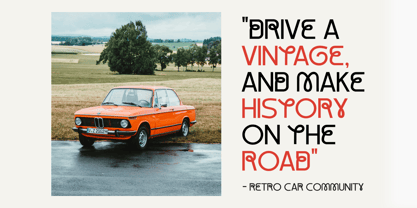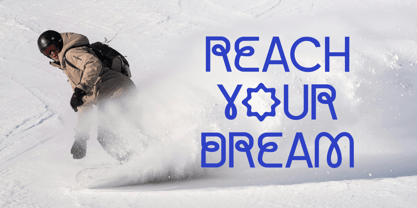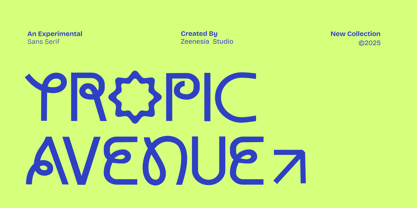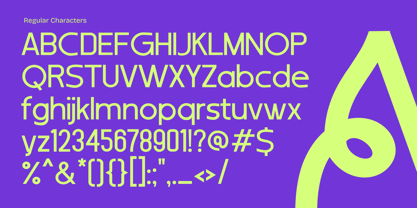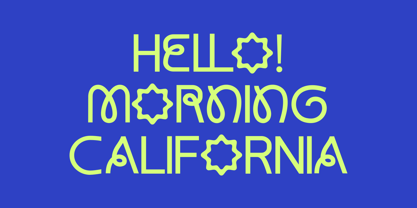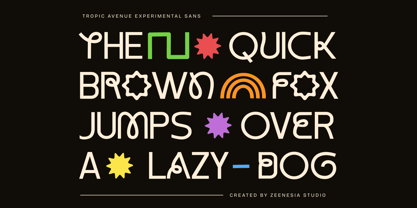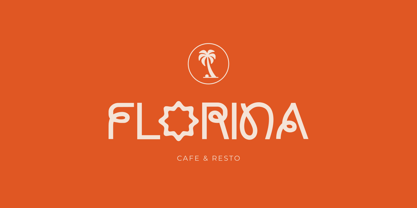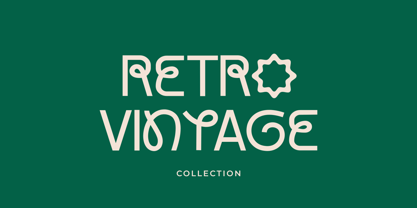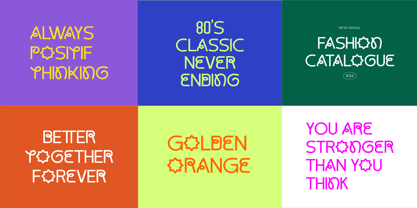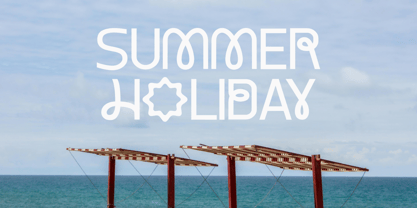
Tropic Avenue
by Zeenesia Studio
The Tropic Avenue Font Family was designed by Doni Purwoko and published by Zeenesia Studio. Tropic Avenue contains 2 styles and family package options. More about this family
Tropic Avenue is an experimental sans serif font. Its distinctive structure blends bold strokes with organic curves, offering a fresh take on modern typography. Each letter is thoughtfully designed to achieve a balance between clarity and artistic expression. Ideal for contemporary branding, editorial layouts, and digital media, Tropic Avenue draws attention with its unconventional yet highly legible form.
Beyond its modern appeal, Tropic Avenue includes a variety of stylistic alternatives, allowing for adaptability across different visual applications. Whether used in striking display settings or refined body text, its unique characteristics add personality without overpowering readability. A perfect choice for designers seeking a font that is both experimental and practical, Tropical Avenue embodies creativity and sophistication in every detail.
Designers: Doni Purwoko
Foundry: Zeenesia Studio